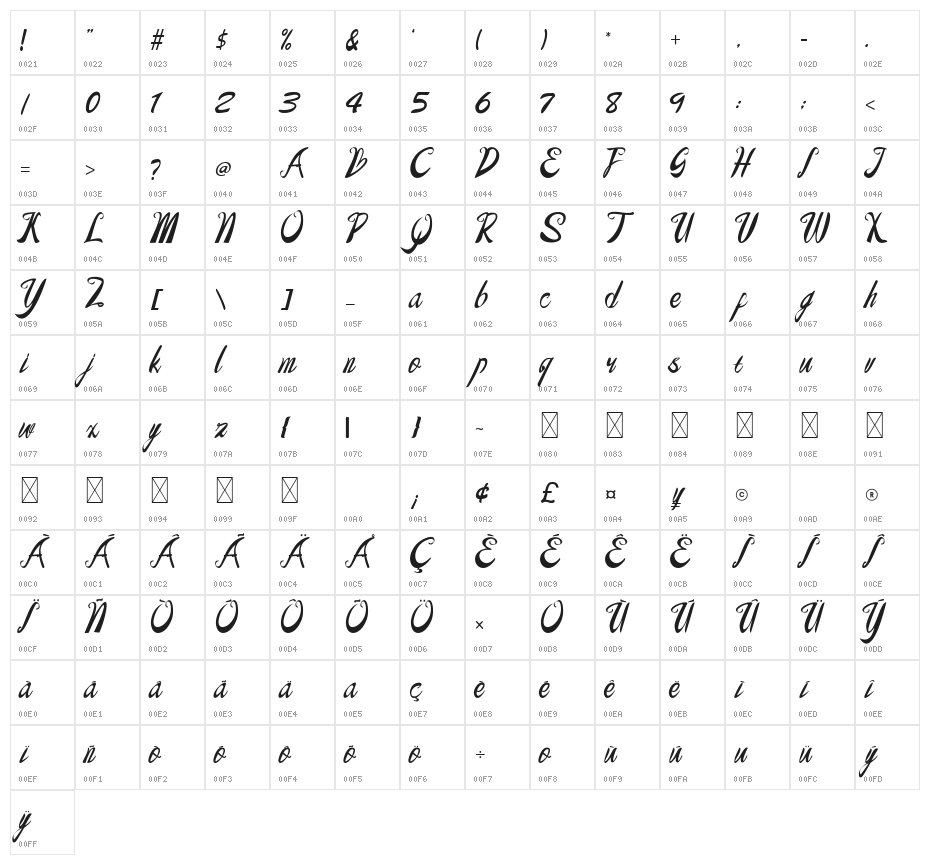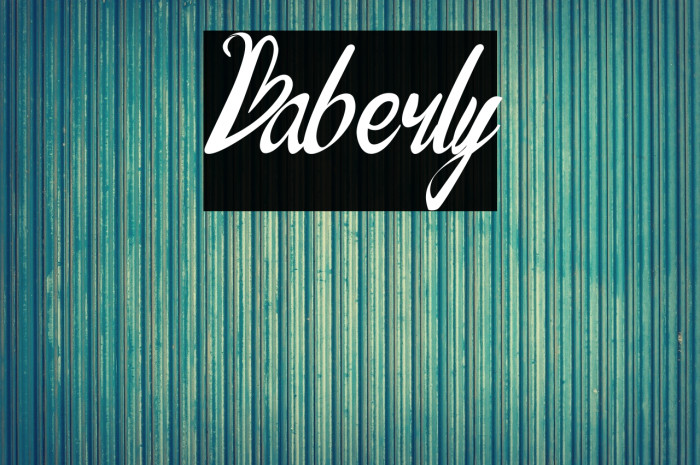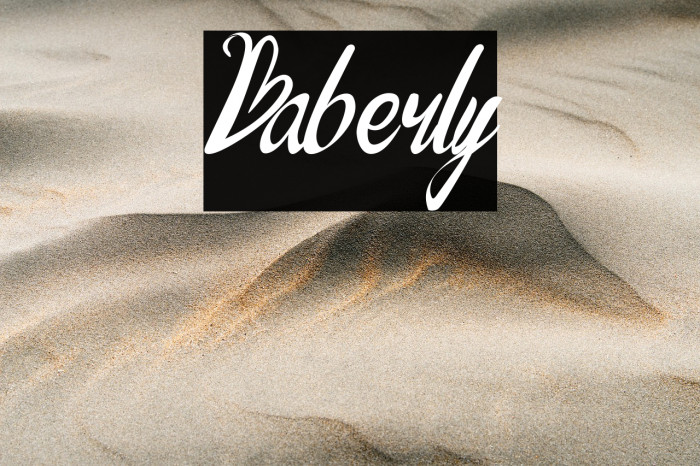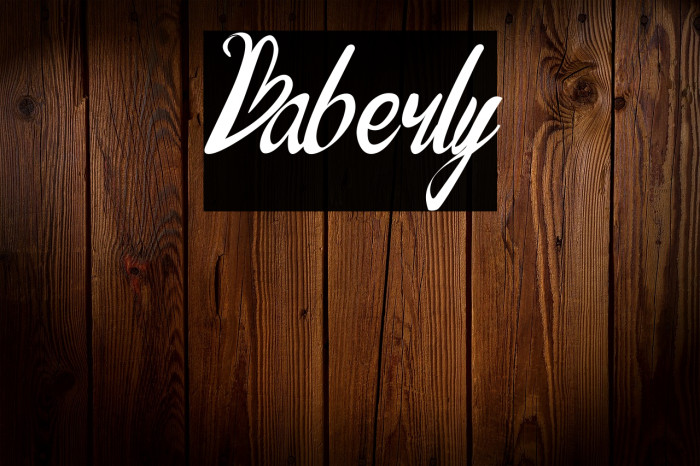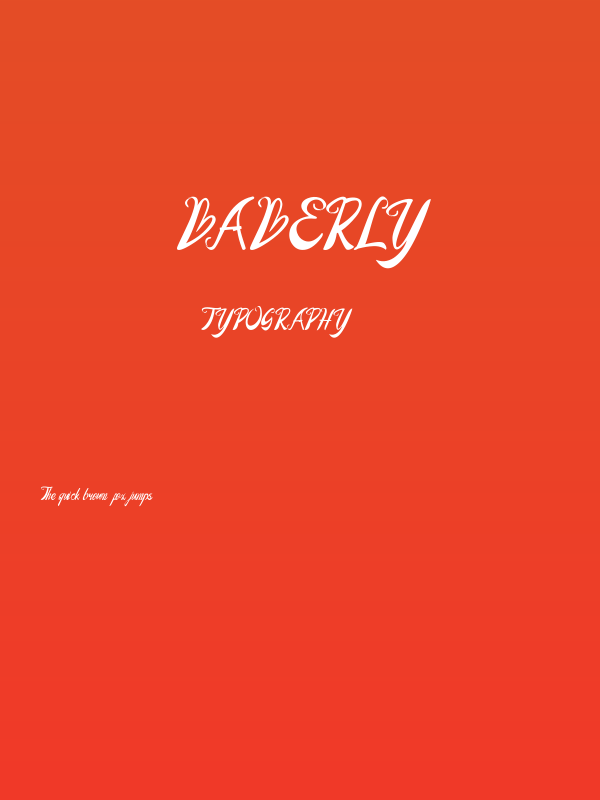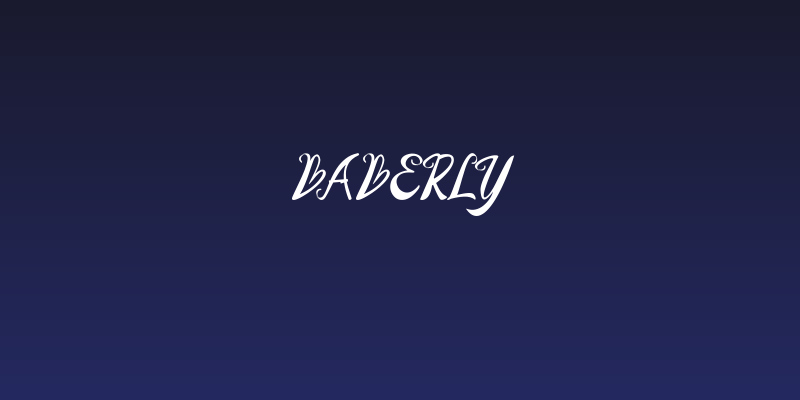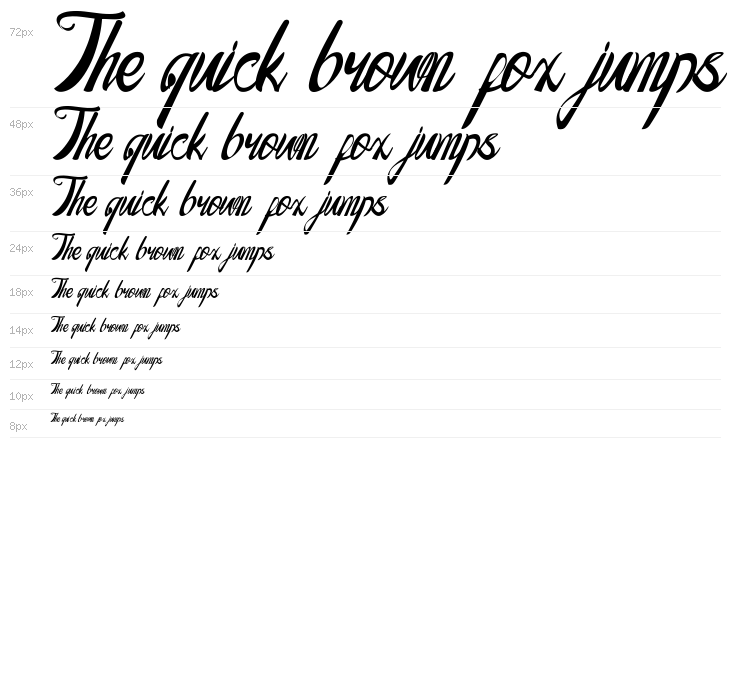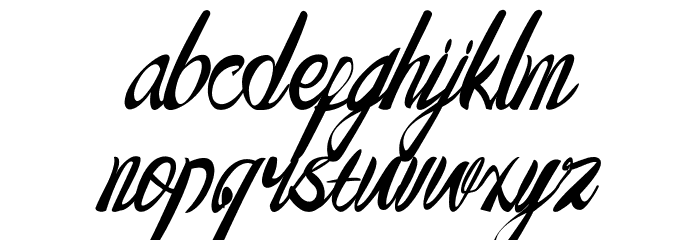
Baberly Font
Baberly Description
This font features a dynamic and flowing script style, characterized by its elegant and cursive letterforms. The uppercase letters exhibit a dramatic flair with sweeping curves and distinctive loops, while the lowercase letters maintain a consistent fluidity that enhances readability. The numerals are bold and slightly slanted, complementing the overall script aesthetic. Special characters are thoughtfully integrated, maintaining the font's cohesive style. This font's design is both sophisticated and expressive, making it suitable for various creative applications.
| Proposed Projects | Ideal for wedding invitations, elegant branding, greeting cards, and decorative headlines. |